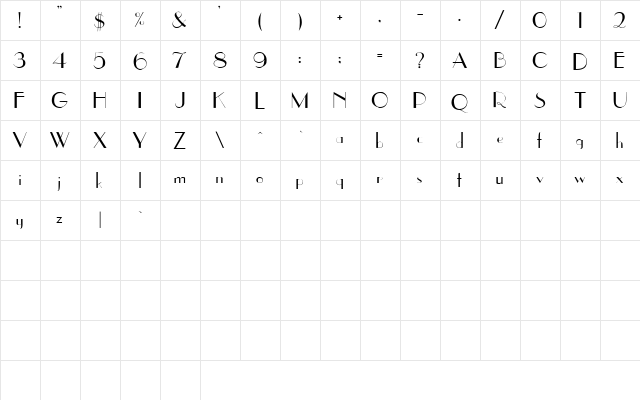
65 Regular
Design Context for 65 Typeface
65 is a composed and adaptable typeface that performs quietly and consistently across a wide range of design contexts.